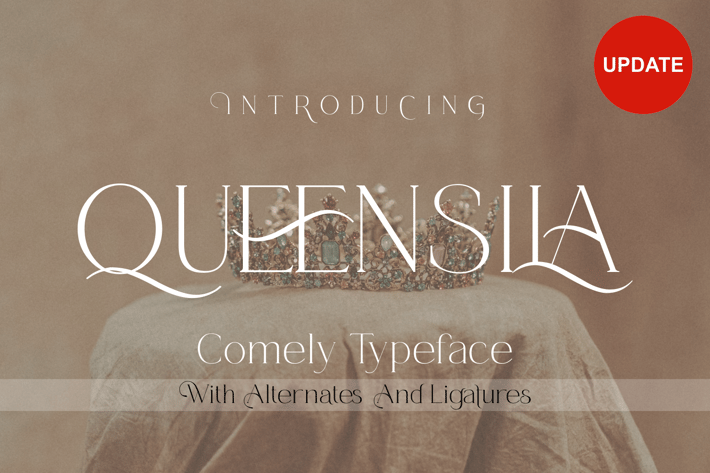
Queensila - Comely Styled Serif Font
Queensila is a comely styled serif font with beautiful ligatures, lots of custom alternative glyphs, and multilingual support. This is a very versatile font that works well in large and small sizes.
Queensila is a perfect fit for your project and lets you create beautiful designs, headlines, posters, logos, badges, t-shirts and more. It's also best used for posts, logos, posters, certificates, labels and more.
Uppercase & Lowercase letters
Alternative & Ligature Styles
Numbers & Punctuation
Accented characters
Supports Multiple Languages